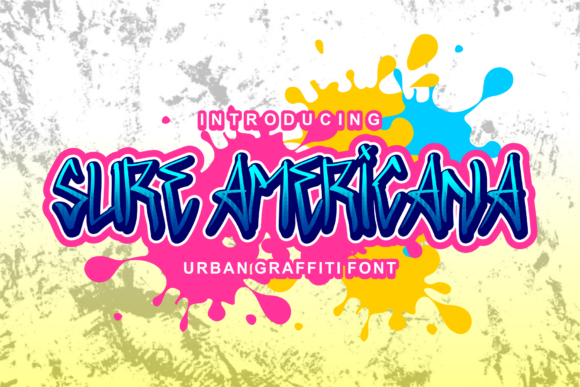
Sure Americana Font
Meet Sure Americana: A Display Ad Font of Bold Character and Retro Charm!
Step into a world of vintage nostalgia and audacious charm with Sure Americana, an alluring script font family engineered for captivating display advertisements. Drawing inspiration from the strokes of marker pens and the allure of the old American spirit, Sure Americana is a font of character and a messenger of history.
In this collection, you'll discover fonts that whisper the tales of racing, the raw energy of graffiti, and the retro allure of skateboards. These aren't just fonts; they're expressions of attitude that demand attention and captivate your audience.
Whether you're crafting a dynamic ad campaign or designing a vintage-inspired project, Sure Americana is here to ignite your creativity and lend an authentic touch of Americana to your work. Its distinct lettering draws eyes, ignites curiosity, and ensures your message is never overlooked.
In addition to its aesthetic appeal, Sure Americana is also a highly functional font family, offering you the versatility to make it uniquely yours. Customize your designs with ease, and watch as your brand message takes center stage.